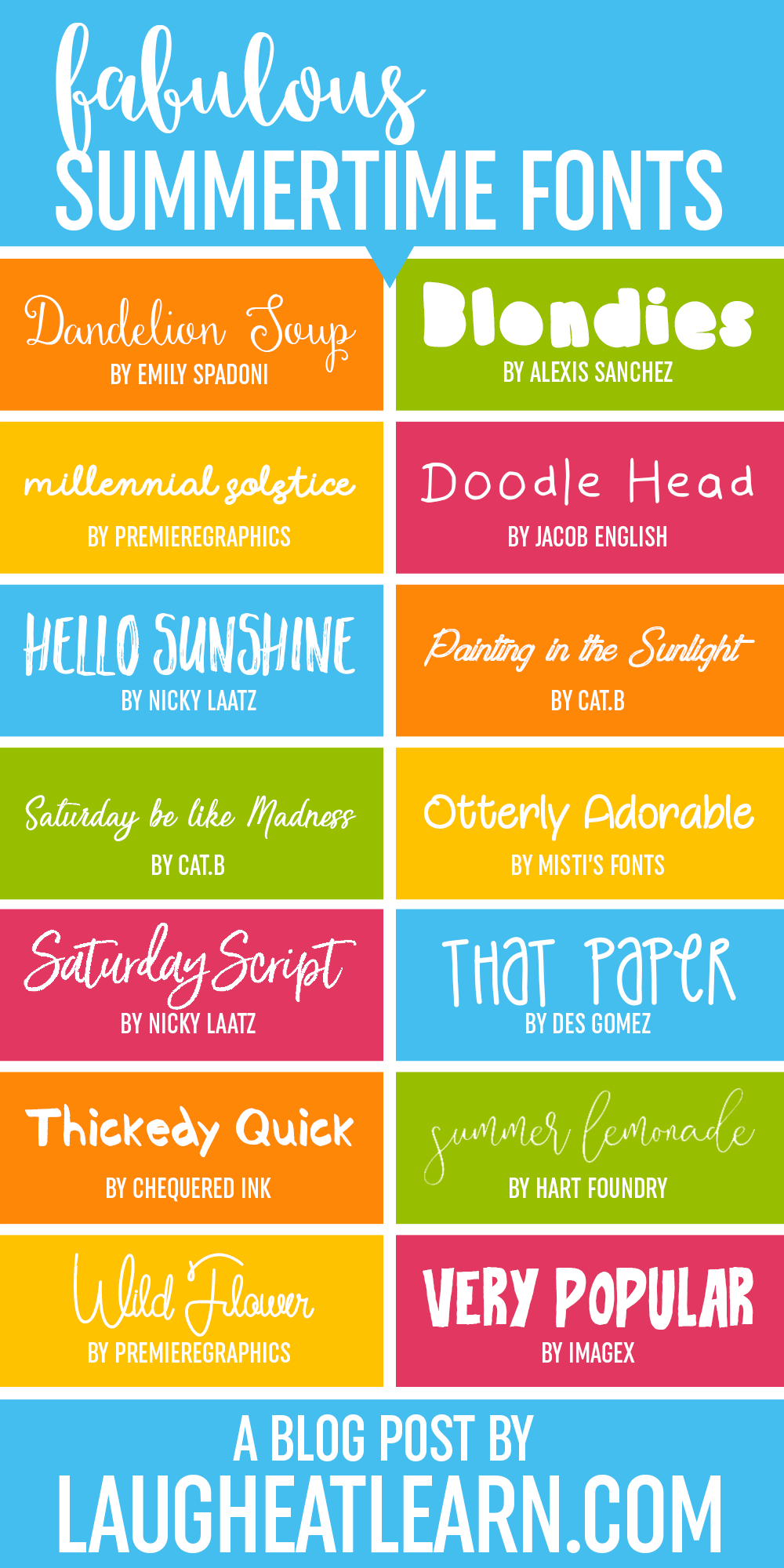
Fonts Summer. Summer tail is horror typeface. A variation of this summer font that is roughly half the size of the tall style.
Every font is free to download! Summer = beach days, camping, vacations, and road trips! Summer font is a beautiful example handwriting display fonts.
A Sleek, Vintage Style Summer Font.
Indigo summer font delivers a playful look and is capable of making your next project look extra interesting and aesthetically pleasing. Get your hands on this spectacular font and use it in accordance with your personal as well as your professional requirements. Download the summer font by md.
The summer typeface family has lain extended and cyrillic letters. 1 summer free font available. Now let’s take an imaginary trip from hawaii and the bahamas to the tropical part of asia.
Classics (baskerville, futura, garamond) alongside hot new fonts (brice, moneta,novera). This summer font features standard basic character set, including uppercase, lowercase, numeric and symbols and provides support for multilingual. This font is for personal use only!
Handwritten font tropical is mapped to regular keyboard keys, so. This font is a great choice for flyers, clothing, social media posts, and crafting other designs. Summer break is an elegant signature font.